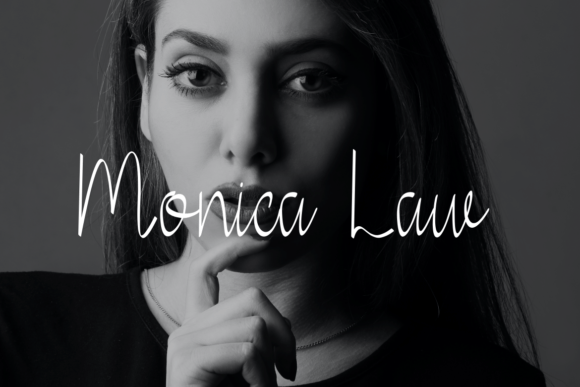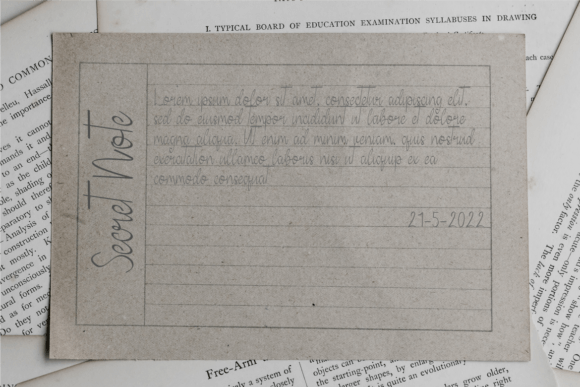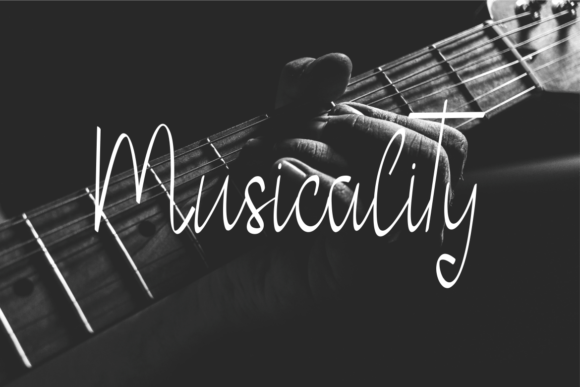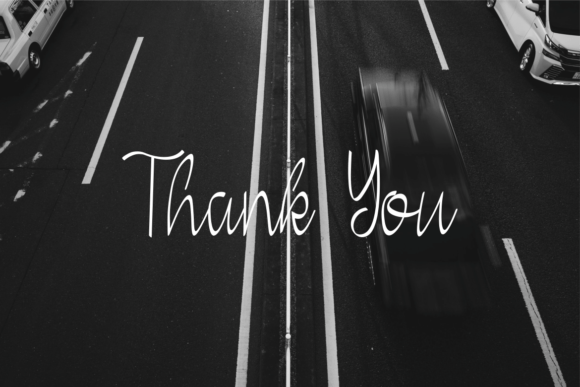
The Birth of a Unique Design: Introducing Bagbesan Font
Have you ever found yourself doodling in a notebook, trying to capture the perfect handwritten feel on paper? That moment of creative flow, where the lines and curves seem to come alive, is what Bagbesan Font is all about. This authentic handwritten font is designed to bring that same sense of personality and uniqueness to your branding projects.
Whether you’re creating a logo, designing a t-shirt, or working on an esports project, Bagbesan Font is the perfect companion for your creative endeavors. Its versatility and distinctive style make it a valuable asset for designers, allowing them to add a touch of authenticity to their work. With Bagbesan Font, you can elevate your designs and make them stand out in a crowded market.
Key Features of Bagbesan Font
- Unique Characteristics: Bagbesan Font features a unique blend of traditional and modern elements, with intricate details and subtle textures that set it apart from other fonts.
- Language Support: The font supports a wide range of languages, including Latin, Cyrillic, and Devanagari scripts, making it suitable for global use.
- Font Style: Bagbesan Font is available in a range of styles, including Regular, Italic, Bold, and Bold Italic, providing users with flexibility and versatility.
Bagbesan Font Review
As a designer, I was excited to try out the Bagbesan Font. I must say, it has some great qualities that make it a solid addition to any design project. ✨ Firstly, the font’s unique and quirky feel makes it perfect for projects that need a bit of personality. It’s also highly legible, even at smaller font sizes, which is a must-have for any font. Additionally, the Bagbesan Font supports a wide range of languages, making it a great option for multilingual designs.
Here are some specific features that I love about the Bagbesan Font:
- ✨ Unique and quirky feel that adds personality to designs
- ✨ Highly legible, even at smaller font sizes
- ✨ Supports a wide range of languages
- ⚠️ Limited font sizes: While the font is highly legible, it may not be suitable for very large or very small font sizes
- ⚠️ Limited customization options: While the font itself is great, there are limited options for customizing the font’s appearance
Overall, I’d say that the Bagbesan Font is a solid choice for designers looking for a unique and legible font. While it has some limitations, its strengths make it a great addition to any design project.
Tips for Getting the Most Out of Bagbesan Font
Use Bagbesan Font for creative projects that require a unique and exotic look.
Pair Bagbesan Font with other fonts that have a similar cultural or artistic theme.
Experiment with different font sizes, colors, and styles to create a visually appealing design.
Use Bagbesan Font for:
• Cultural or artistic projects
• Travel or adventure-themed designs
• Unique and creative branding
• Artistic or handwritten-style text